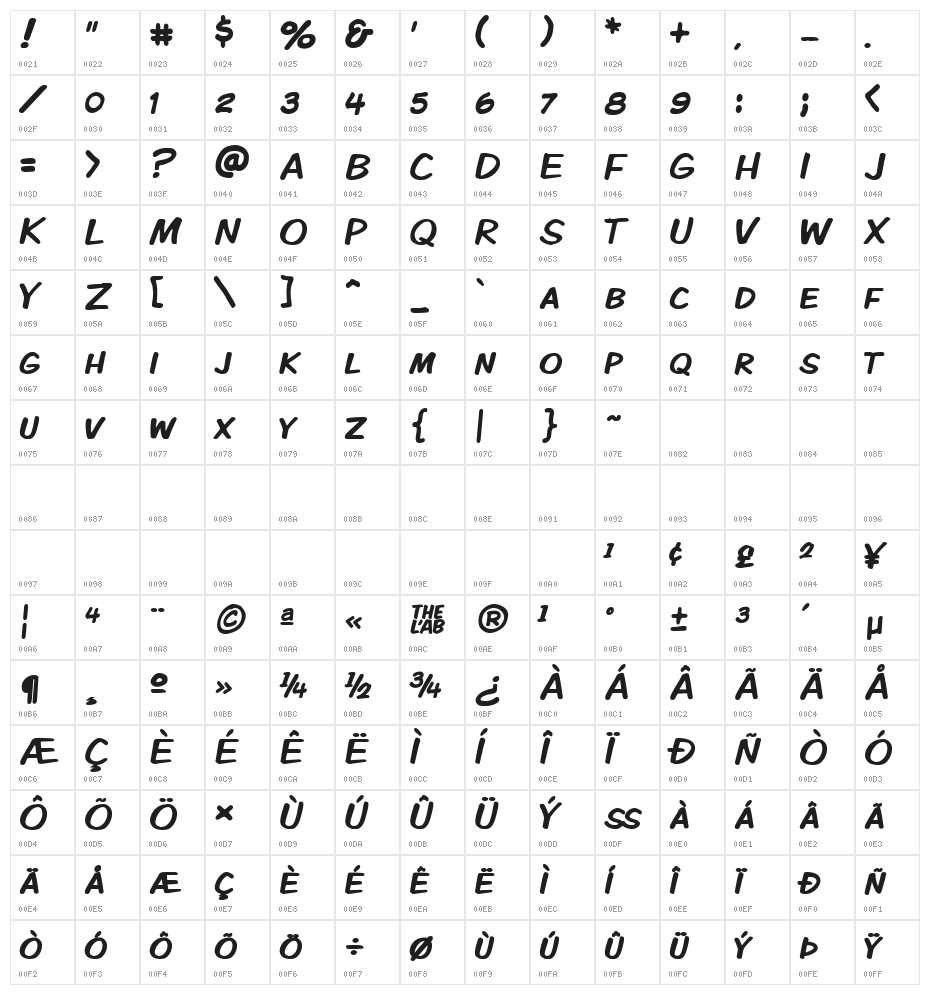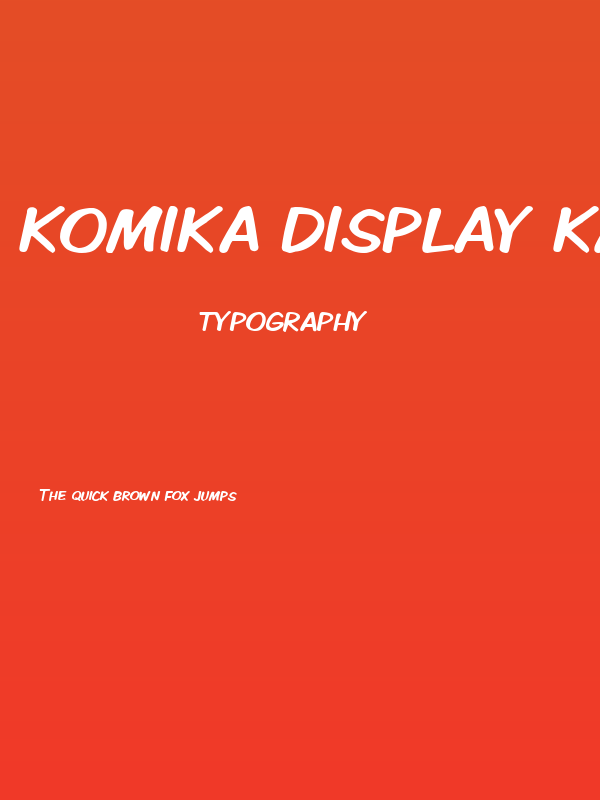
Komika Display Kaps Font
Komika Display Kaps Description
This font features a playful and bold style with rounded edges and a slightly italicized form. The characters are thick and have a consistent stroke width, giving it a cartoonish and friendly appearance. The uppercase and lowercase letters maintain a uniform height, contributing to its cohesive look. The numbers and special characters follow the same design principles, ensuring readability and visual appeal. This font is ideal for projects that require a fun and engaging typeface, such as comics, children's books, or playful branding.
| Overall Style | Playful, Cartoonish |
| Proposed Projects | Ideal for comics, children's books, playful branding, and casual posters. |